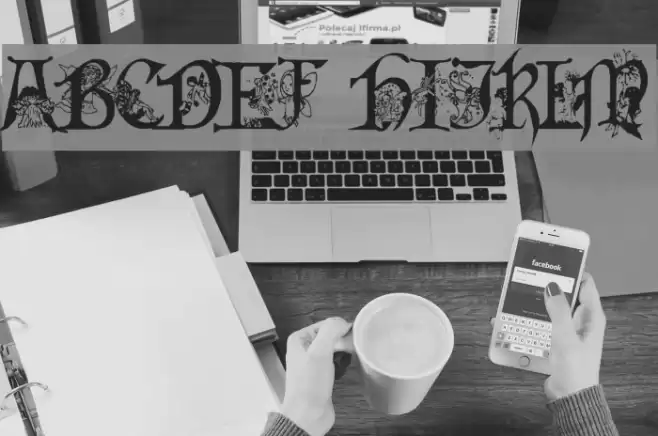
Fairies Revealed Font
Fairies Revealed Description
This whimsical and enchanting font features intricate fairy-themed embellishments integrated into each character. The uppercase letters are adorned with delicate fairy illustrations, creating a magical and playful aesthetic. The lowercase letters maintain a similar style, with swirling details and decorative elements that evoke a sense of fantasy. The numerals are bold and slightly curved, maintaining the whimsical theme. Special characters include charming fairy silhouettes and other magical symbols, enhancing the overall fairy-tale vibe. This font is perfect for projects that require a touch of magic and creativity.
A whimsical, fairy-themed decorative font with intricate embellishments from Uncategorized fonts.
- Proposed Projects: Ideal for fantasy book covers, children's storybooks, magical event invitations, and whimsical branding projects.
- Overall Style: Decorative, Fantasy
- Use Case: Headlines, Logos, Decorative text